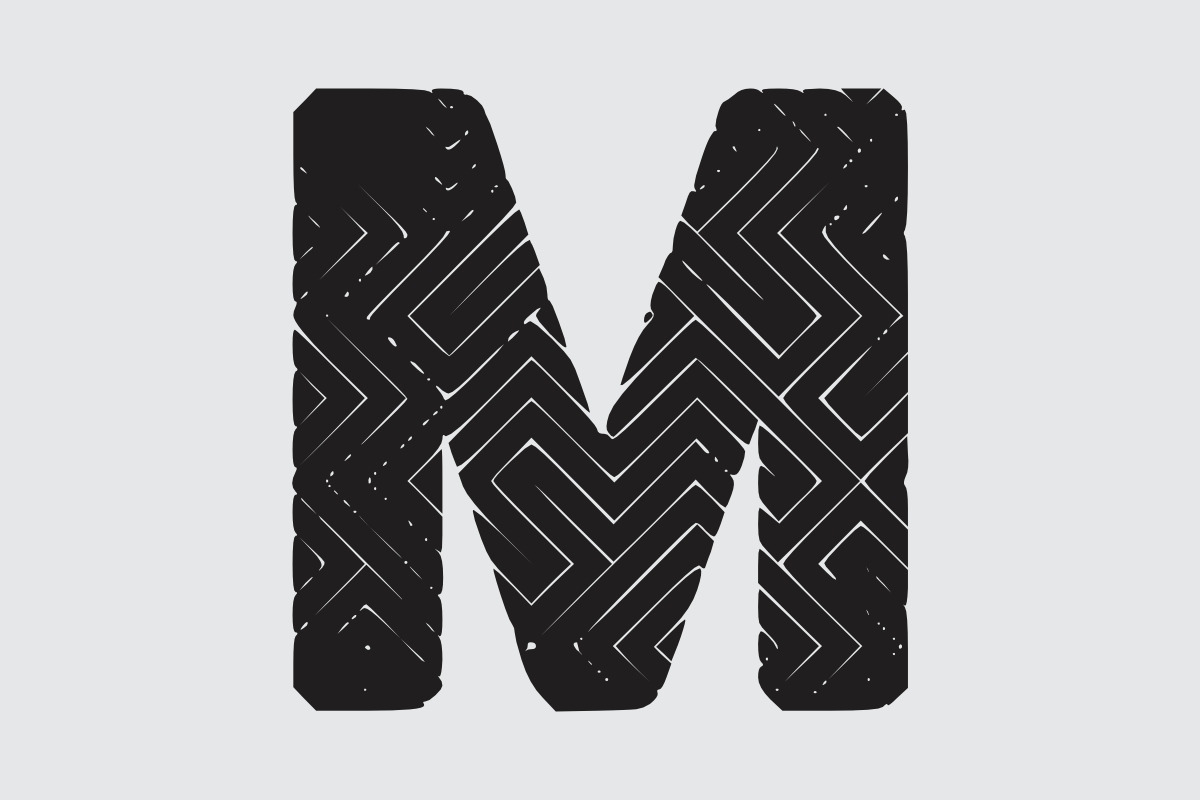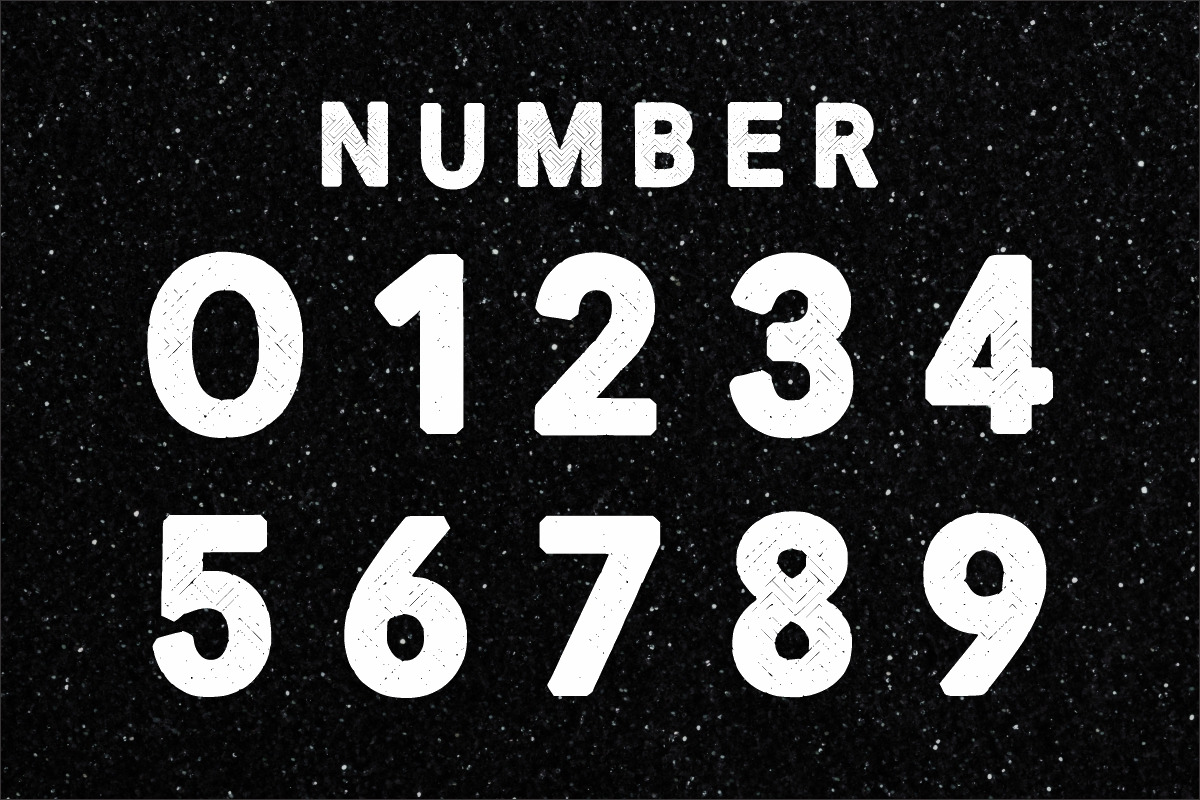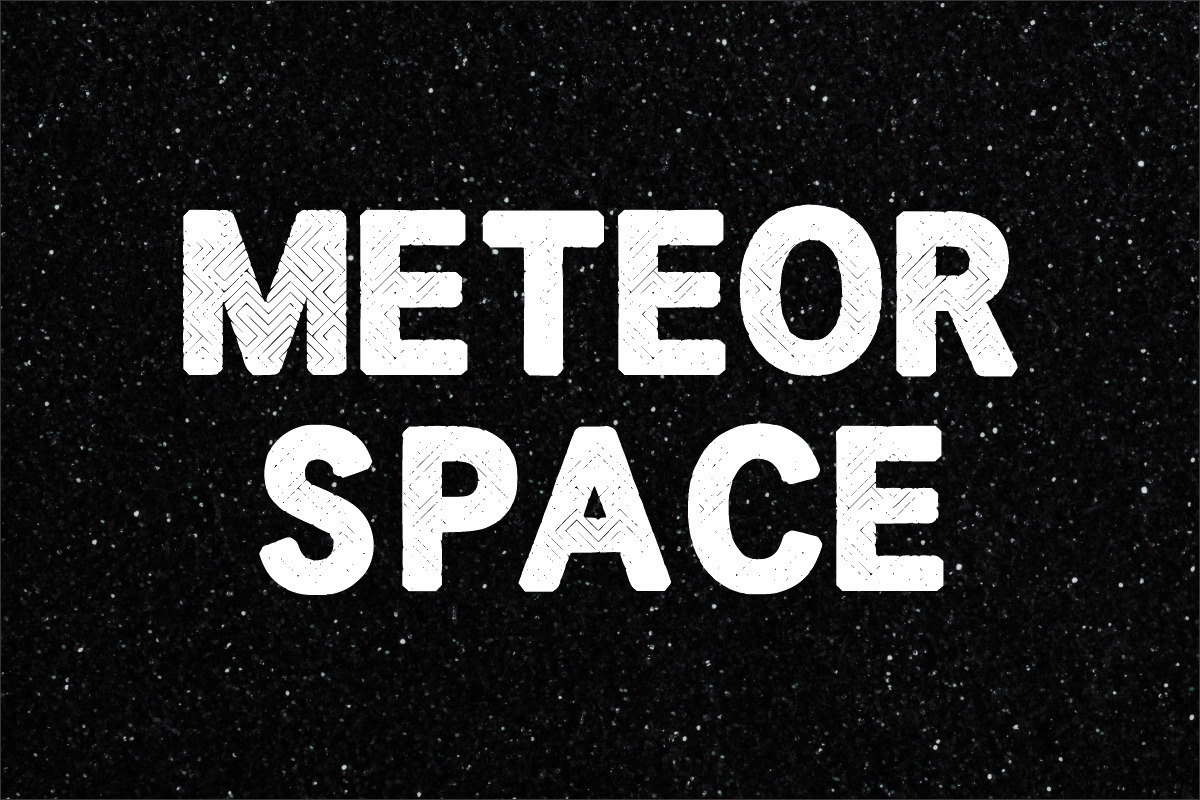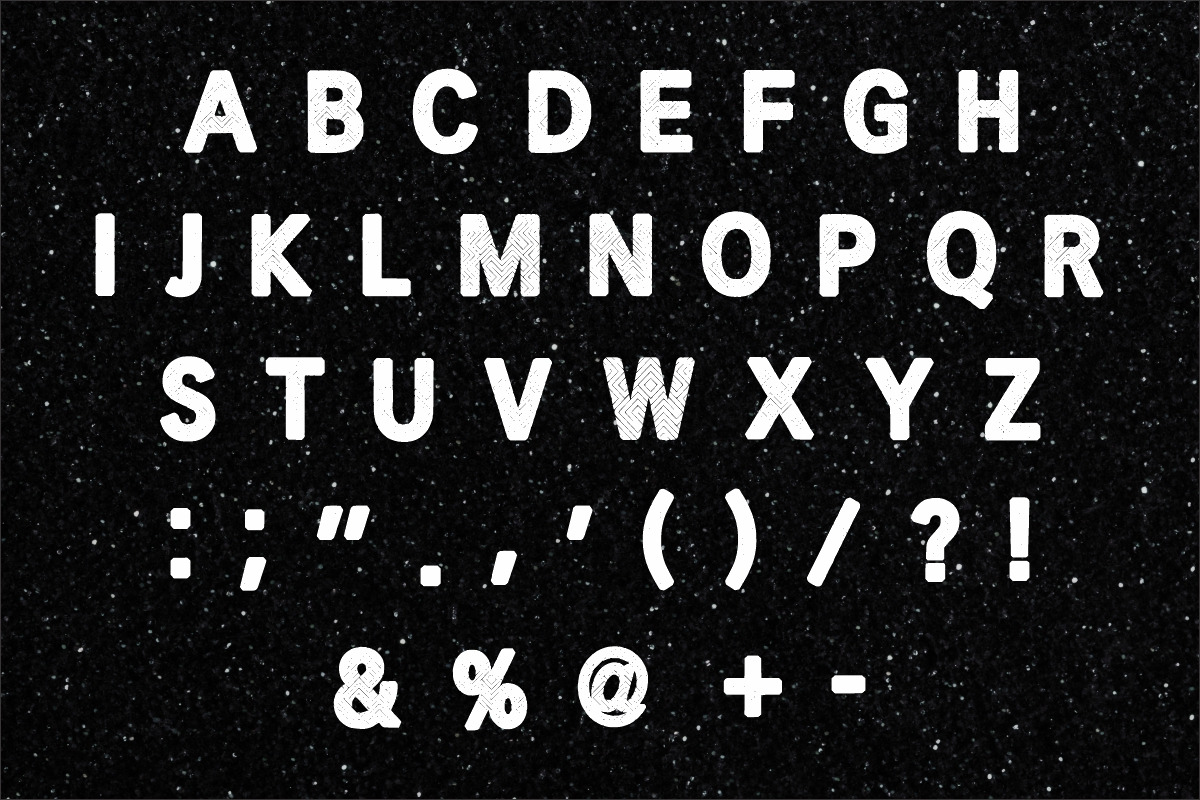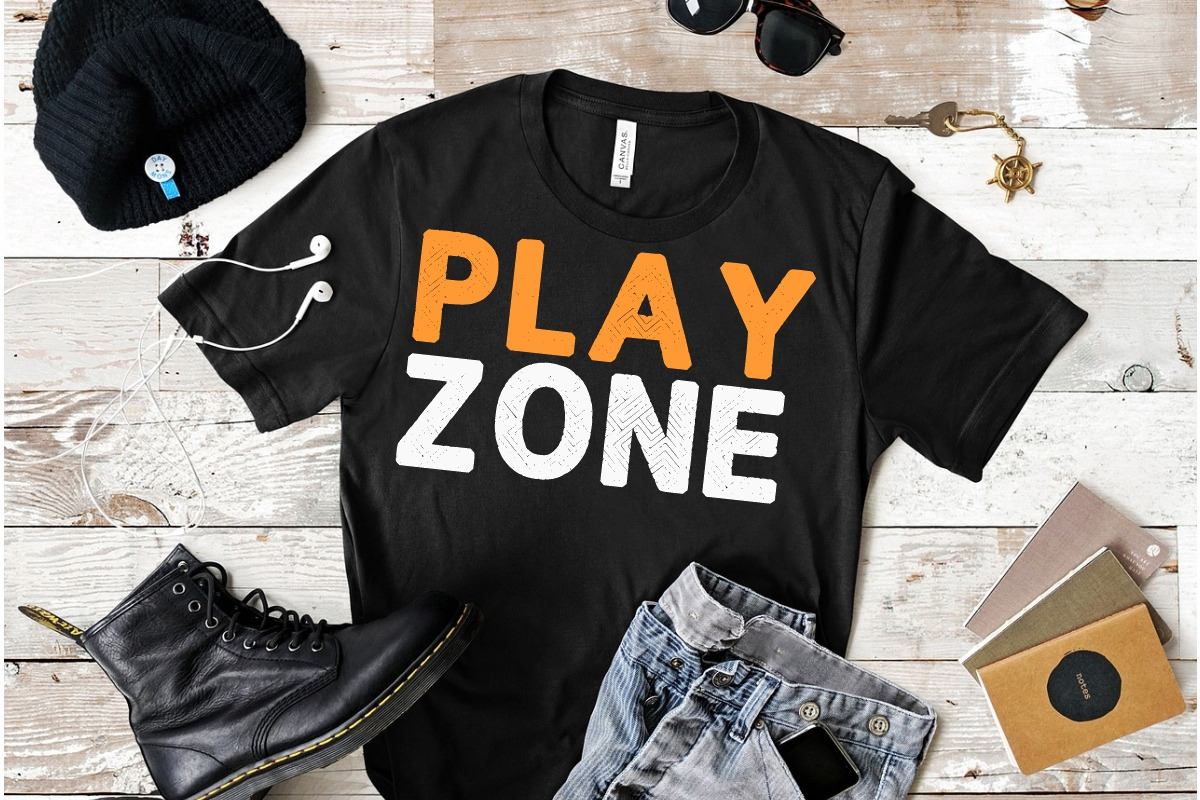
Black Glitter
Black Glitter is a grunge and bold display font perfect for various projects such as blog posts, logos, branding, ads, invitations, greeting cards, planners, photo albums, decorations, and much more.